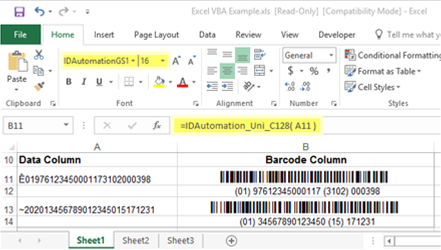
GS1-128 Barcode Font User Manual
The GS1-128 Barcode Font Suite provides several font sizes designed to produce any GS1-128 barcode type to meet various requirements.
GS1 Font Sizes
GS1-128 Size Summary: For GS1-128 symbols, the absolute minimum X-dimension is 0.250 mm (0.00984 in.). The maximum X dimension is 1.016 mm (0.040 in.). Application specifications stipulate a target and range of the X dimension. For symbols used in general distribution, the minimum height is 32 mm (1.25 in.). The actual symbol height used depends on specific application requirements.
Several font versions are provided to support different GS1 height and width specifications. The last number in the font name determines X to Y (narrow bar to height) ratio which determines the height of the barcode symbol. Every single font may also be printed at various point sizes, which means several combinations of heights and widths may be produced. This GS1 font package is designed to produce all sizes to meet any GS1 specification. The charts below list several implementation examples. Always refer to the latest GS1 General Specifications for a complete list of current implementation requirements.
Chart of common fonts used with .50" (13mm) height requirements:
Font Name | Points | X Dimension | GS1 Implementation Examples |
IDAutomationGS1 68 | 9 | 7mil (.17mm) | Minimum size for non-retail consumer trade items. |
IDAutomationGS1 60 | 11 | 9mil (.23mm) | Consumer trade items. |
IDAutomationGS1 50 | 12 | 10mil (.25mm) | Minimum X and height for GS1-128 when used for SSCC, GDTI, GRAI, GIAI and GLN. |
IDAutomationGS1 38 | 16 | 13mil (.33mm) | Recommended size for retail consumer trade items. |
IDAutomationGS1 32 | 19 | 15mil (.39mm) | USPS Customs Declarations Form. |
IDAutomationGS1 28 | 22 | 18mil (.47mm) | Minimum height for GS1-128 with larger X dimension. |
Chart of common fonts used with .75" (19mm) height requirements:
Font Name | Points | X Dimension | GS1 Implementation Examples |
IDAutomationGS1 64 | 14 | 12mil (.30mm) | Small X at .75" high. |
IDAutomationGS1 56 | 16 | 13mil (.33mm) | USPS Special Services minimum height and width. |
IDAutomationGS1 52 | 18 | 15mil (.39mm) | USPS Special Services preferred height and width. |
Chart of common fonts used with 1.25" (32mm) height requirements:
Font Name | Points | X Dimension | Y (Height) | GS1 Implementation Examples |
IDAutomationGS1 92 | 16 | 13mil (.34mm) | 1.25" (32mm) | Shortest width for labels. |
IDAutomationGS1 76 | 20 | 16mil (.42mm) | 1.25" (32mm) | Shorter width for labels. |
IDAutomationGS1 64 | 23 | 19mil (.495mm) | 1.25" (32mm) | Minimum X for trade items in general distribution. |
IDAutomationGS1 46 | 30 | 25mil (.64mm) | 1.25" (32mm) | Target size for trade items scanned in general distribution. |
IDAutomationGS1 46 | 34 | 28mil (.71mm) | 1.25" (32mm) | Medium X for trade items. |
IDAutomationGS1 42 | 38 | 30mil (.64mm) | 1.25" (32mm) | Larger X for trade items. |
IDAutomationGS1 32 | 48 | 40mil (1.0mm) | 1.25" (32mm) | Largest X for trade items. Carton barcode size when not printed on labels. |
Complete chart of all fonts by name:
Font Name | Points | X Dimension | Y (Height) | GS1 Implementation Examples |
IDAutomationGS1 13 | 12 | 10mil (.25mm) | .13" (3.2mm) | DataBar Truncated smallest size. |
IDAutomationGS1 24 | 12 | 10mil (.25mm) | .24" (6.2mm) | DataBar Expanded shortest height. |
IDAutomationGS1 28 | 22 | 18mil (.47mm) | .50" (13mm) | Minimum height for GS1-128 in non-automated
scanning. DataBar Stacked shortened height. |
IDAutomationGS1 32 | 19 | 15mil (.39mm) | .50" (13mm) | USPS Customs Declarations Form. |
IDAutomationGS1 32 | 48 | 40mil (1.0mm) | 1.25" (32mm) | GS1 UK carton barcode when not printed on labels. |
IDAutomationGS1 34 | 10 | 8mil (.208mm) | .28" (7.1mm) | DataBar Stacked Omnidirectional for loose produce. Stacked height: .58" (14.8mm) |
IDAutomationGS1 34 | 12 | 10mil (.25mm) | .34" (8.7mm) | DataBar Stacked Omnidirectional for POS. Stacked height: .72" (18.2mm) |
IDAutomationGS1 38 | 16 | 13mil (.33mm) | .50" (13mm) | GS1 US 13mil with minimum height. |
IDAutomationGS1 42 | 38 | 30mil (.64mm) | 1.25" (32mm) | Large X Dimension with 32mm height. |
IDAutomationGS1 46 | 34 | 28mil (.71mm) | 1.25" (32mm) | Medium X Dimension with 32mm height. |
IDAutomationGS1 50 | 12 | 10mil (.25mm) | .50" (13mm) | Minimum X and height for GS1-128. |
IDAutomationGS1 52 | 18 | 15mil (.39mm) | .76" (20mm) | USPS Special Services preferred height and width. |
IDAutomationGS1 56 | 16 | 13mil (.33mm) | .75" (19mm) | USPS Special Services. |